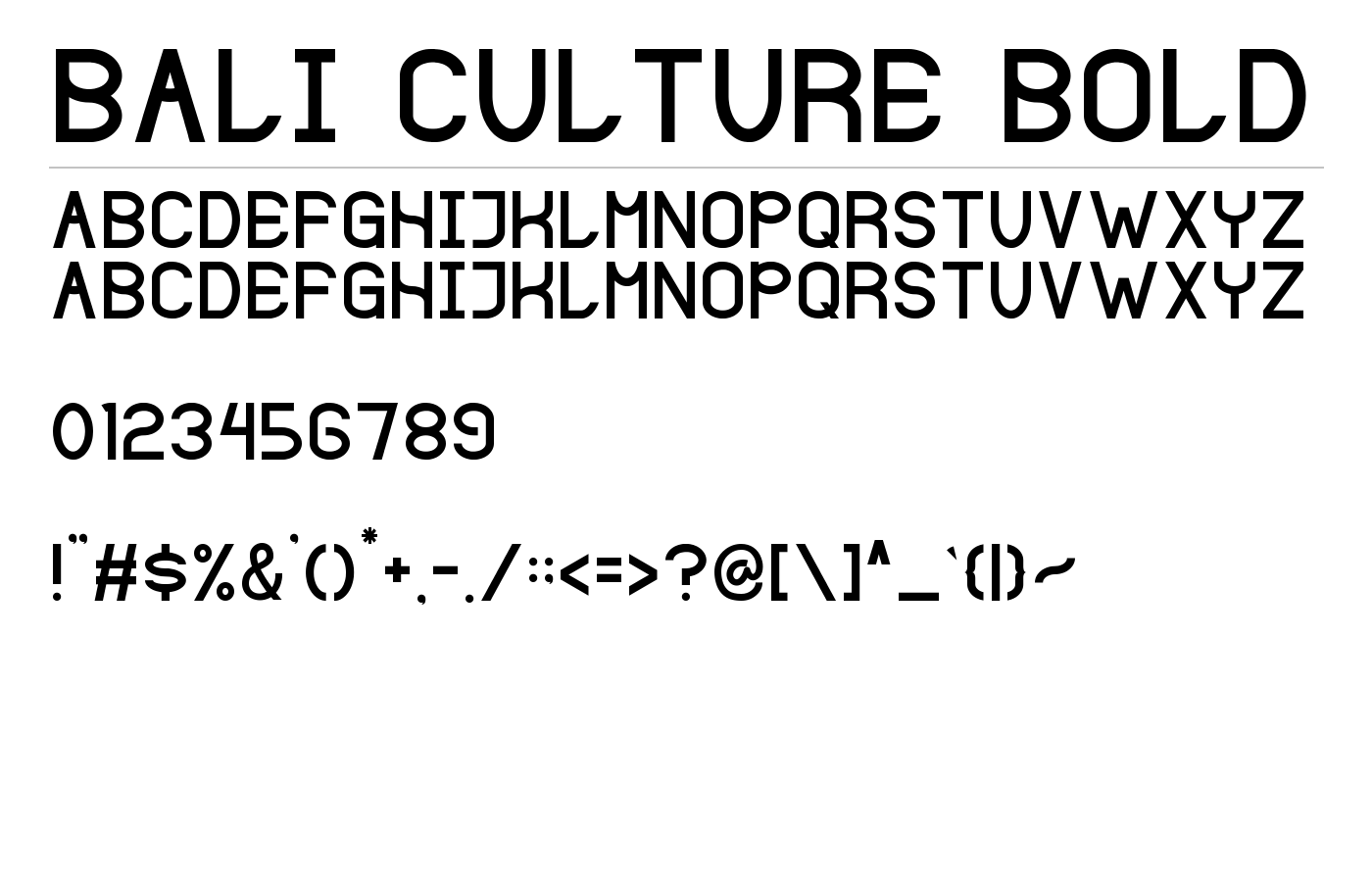
Bali Culture Regular is a distinctive sans serif font with a modern, geometric feel and subtle rounded edges that lend it a playful yet clean character. Its medium weight and open letterforms create an airy rhythm, making it ideal for headlines, branding, and creative projects that want to convey both uniqueness and clarity. This font works well for contemporary designs seeking a stylish, approachable vibe with a touch of personality.
Bali Culture Regular Font
About Bali Culture Regular Font
| Font family | Bali Culture Regular Font |
| Designer | ranggapbp |